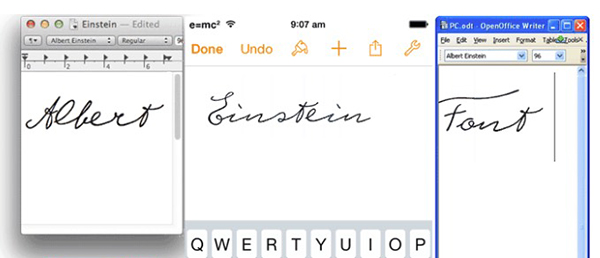
Albert Einstein Font on Kickstarter
Kickstarter, like other successful crowdsourcing sites, is a weird and wonderful place. I find myself wanting to back projects for wacky inventions and gadgets that fill a need I didn’t even know I had. However, it’s also a great place to find cool things that fit in your everyday life, whether personal or professional. The Albert Einstein Font Kickstarter campaign just might fall into both categories. Dreamed up by dancer Elizabeth Waterhouse and brought to life by typographer Harald Geisler, the font is being created based on the beautiful handwriting of one of the world’s greatest geniuses. Apparently, there is a desire for just such a font, as the project’s $15,000 goal has been fully-funded—more than twice over—in just the first few days of fund-raising.
Geisler is no stranger to crafting a typeface based on the penmanship of someone famous, having created (and backed via Kickstarter) the Sigmund Freud font in 2013. He carefully details the actual process of creating a font and the extra work that’s involved in duplicating such well-known writing, as well as mimicking the idiosyncrasies of the fluidity of handwriting. To achieve the latter, he has engineered randomization of letter pair connections via angles and strokes. The Albert Einstein font is well into production, with over 400 glyphs already created. For comparison, Geisler’s Freud font has nearly 1500 glyphs, so there is still a lot of work ahead.
Geisler says that one of the font’s key components will be to include more than just the run-of-the-mill set of mathematical and scientific symbols, given that the inspiration behind the font is one of the greatest scientific minds of all time. The genius concept for choosing which symbols to include is that the suggestions will come from backers at the higher levels. Pledge levels start at $15, which gets you a single, personal use copy of the finished font. Other levels include commercial licenses, multi-seat licenses, and extras like Einstein posters and chocolates from Bern! The font is expected to be ready for launch in early 2016 and will be available for Mac, Linux, PC, and iOS devices.